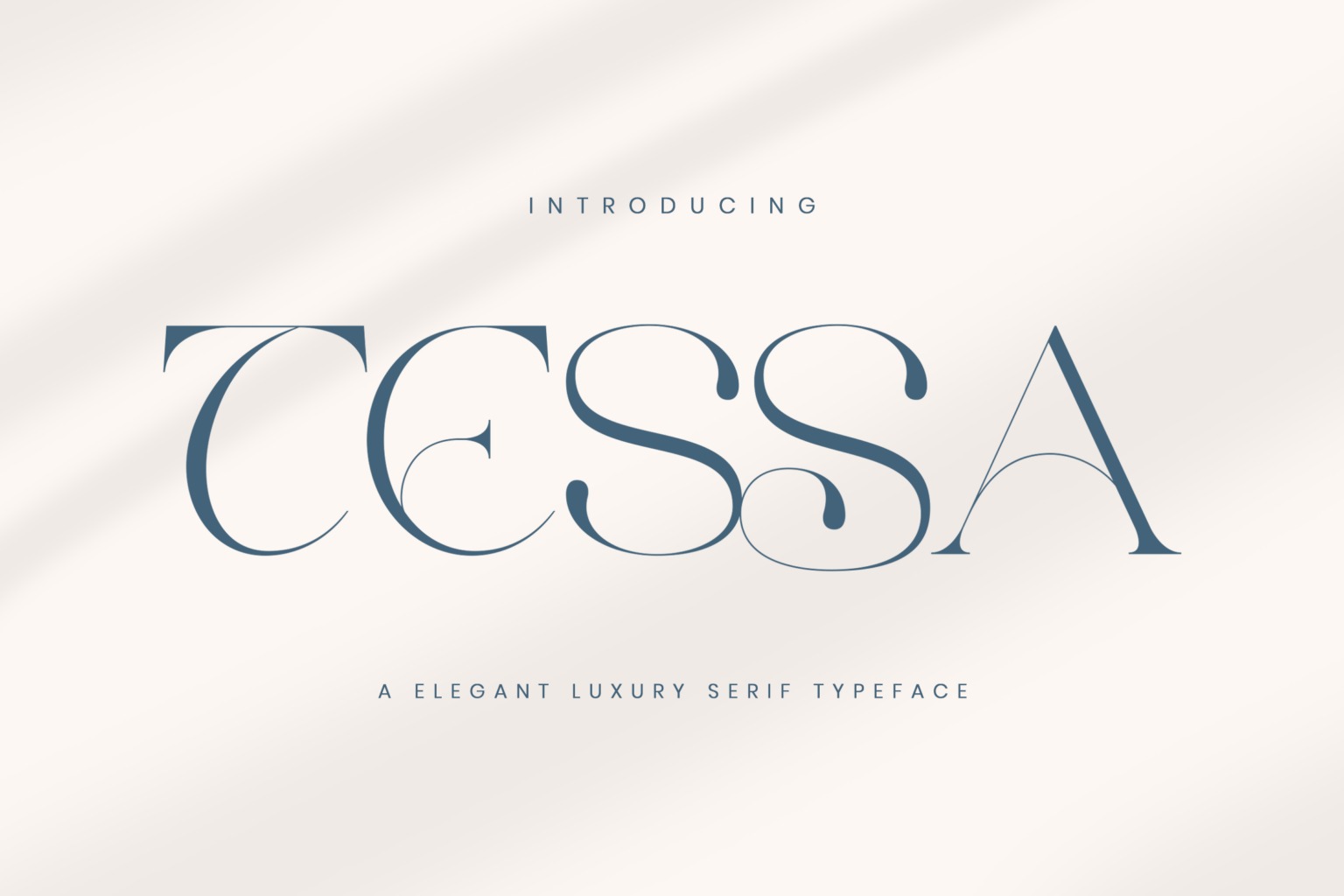
Tessa Font
Tessa Font is a distinctive and expressive font crafted to bring personality, structure, and creative energy into your projects. Tessa Stylish Ligature Typeface, inspired by the famous minimalist logo perfect for the purposes of designing templates, brochures, videos, advertising branding, logos and more.